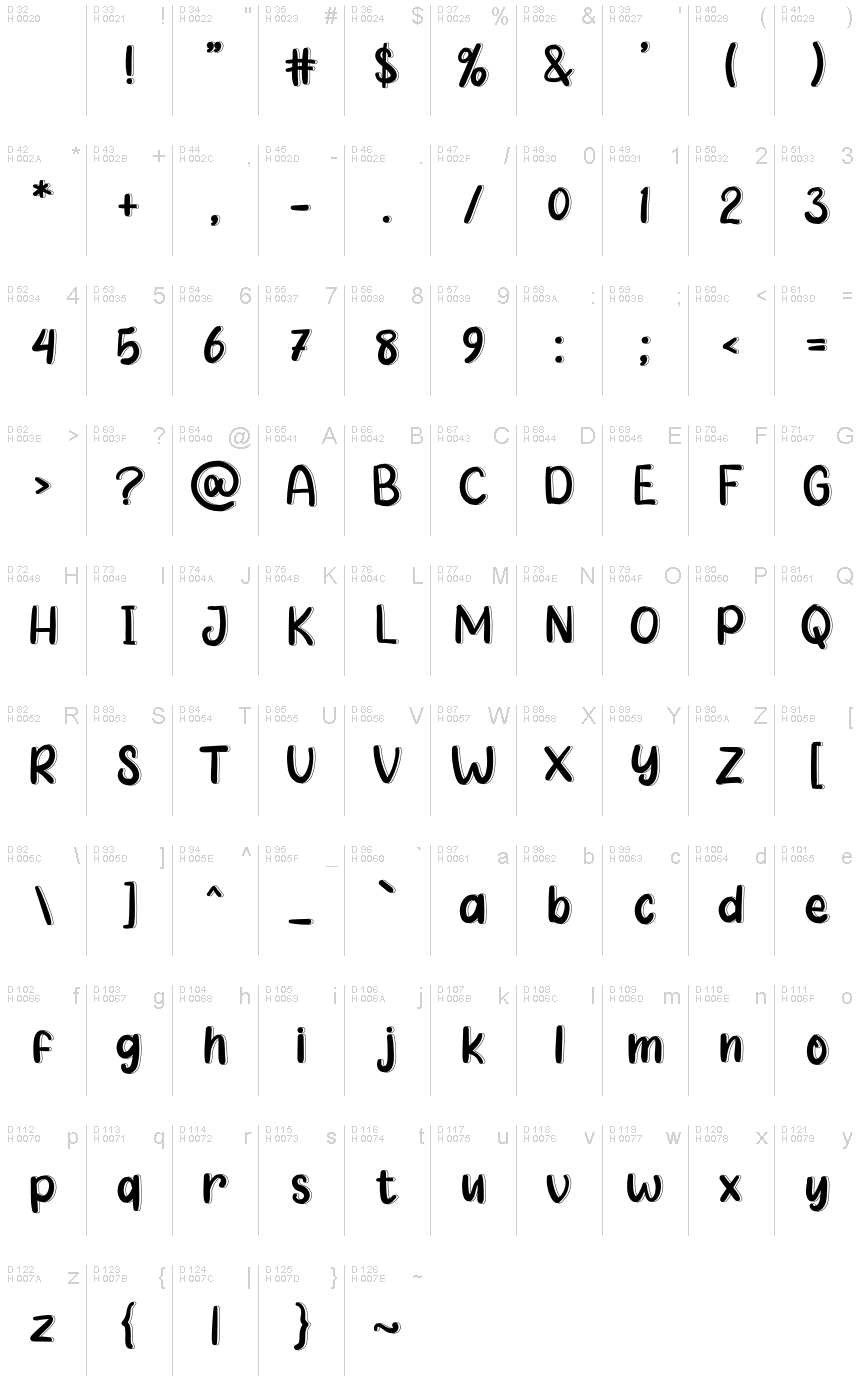
Afternoon Farmhouse
Afternoon Farmhouse font were created by K_IN Studio. A cartoon-style, display font with relaxed forms, rounded edges and a low contrast gave this typeface a friendly, informal mood that well suited to branding for home accessories, organic food packaging and handmade products.
The casual look of Afternoon Farmhouse make it perfect for social media graphics or posters at parks or farms which is Tie Rope’s strong point. Badges; kid's book title and school supplies also make use of it's playful characteristic.